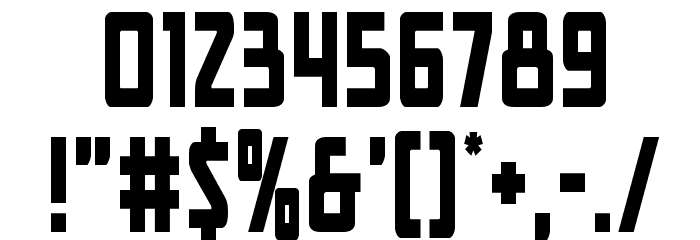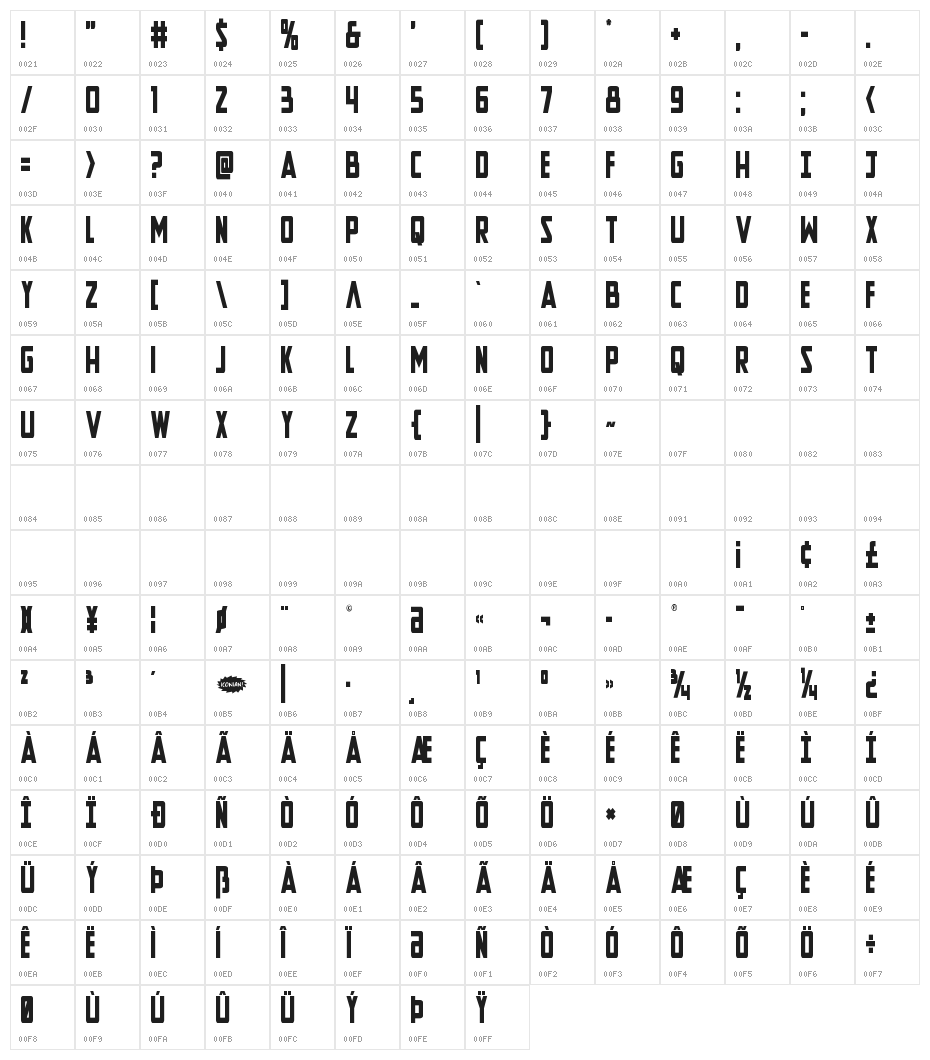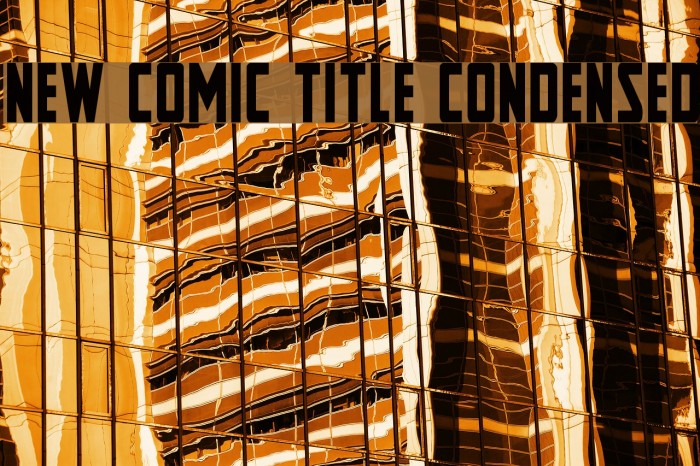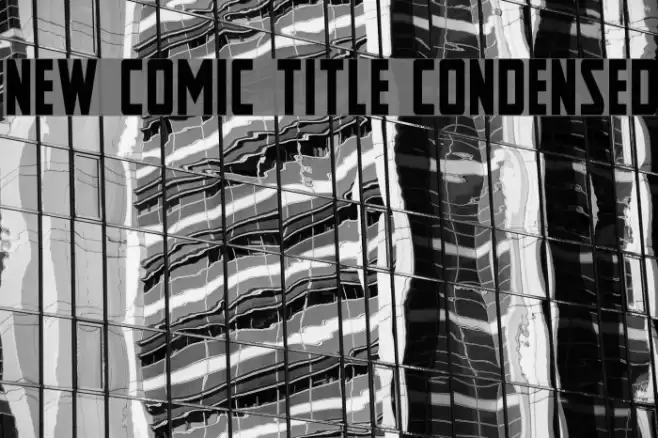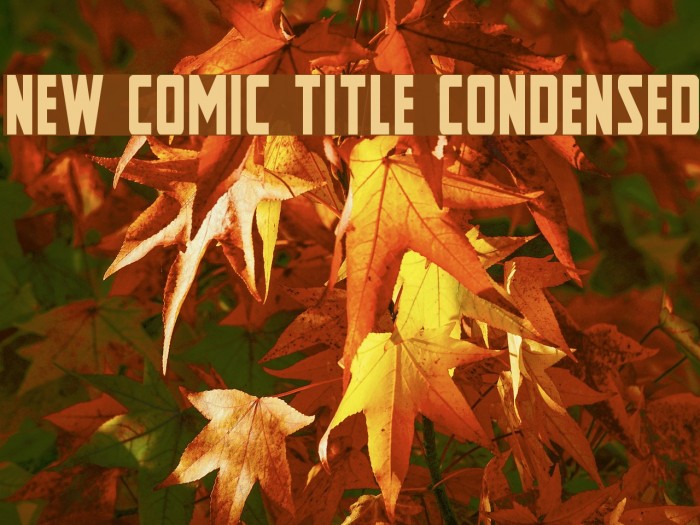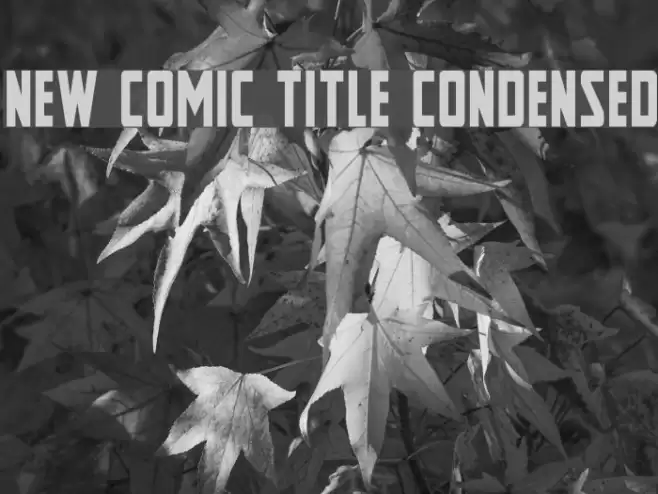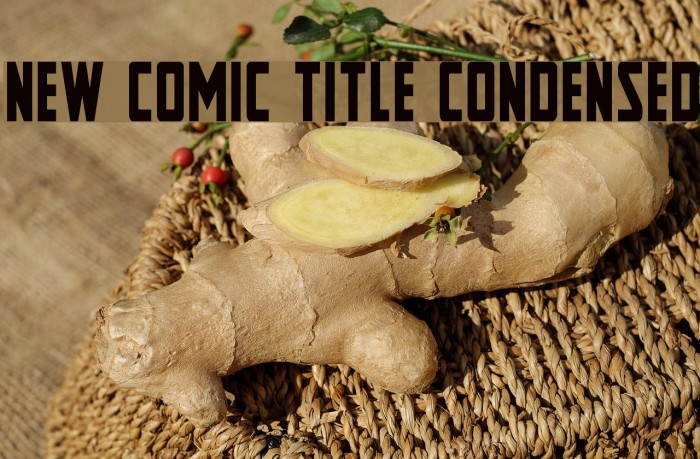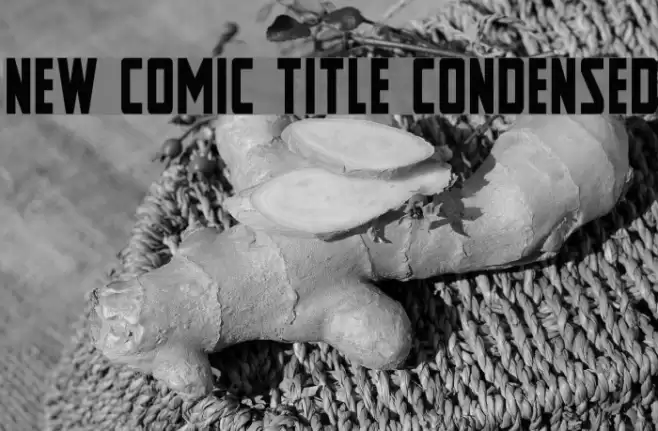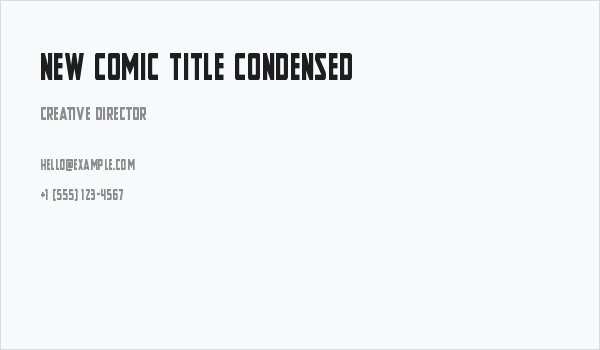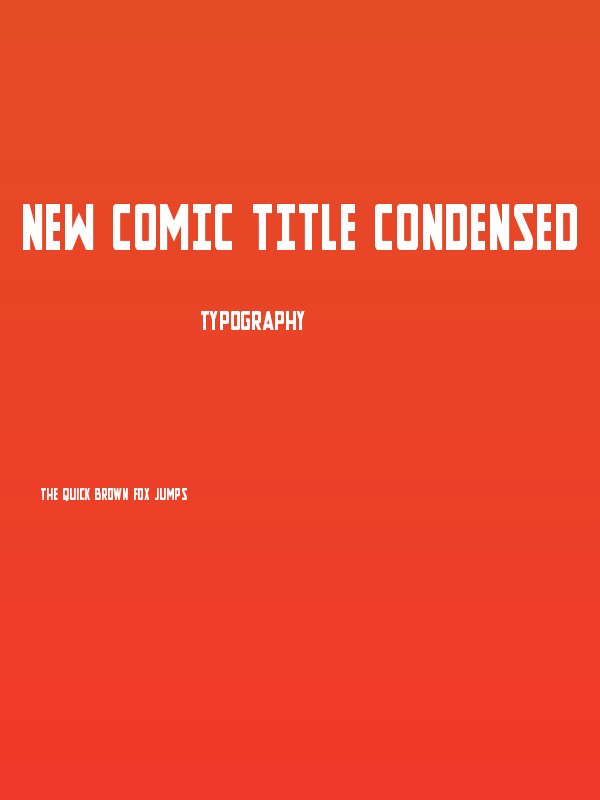
New Comic Title Condensed Font
New Comic Title Condensed Description
This font features a bold and condensed style, characterized by its thick, uniform strokes and geometric shapes. The uppercase and lowercase letters maintain a consistent height, contributing to a cohesive and structured appearance. The numerals and special characters are designed with the same boldness, ensuring readability and impact. The overall design is modern and assertive, making it suitable for attention-grabbing headlines and titles. Its condensed nature allows for efficient use of space, making it ideal for layouts where space is limited but impact is necessary.
| Proposed Projects | Ideal for comic book titles, posters, advertising, and any project requiring a strong visual impact. |